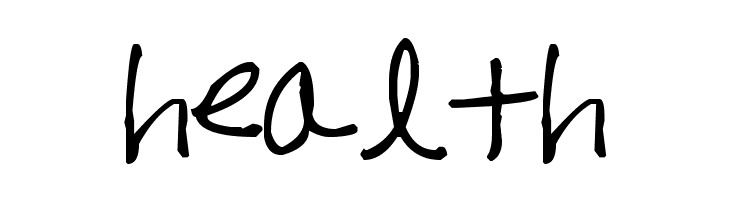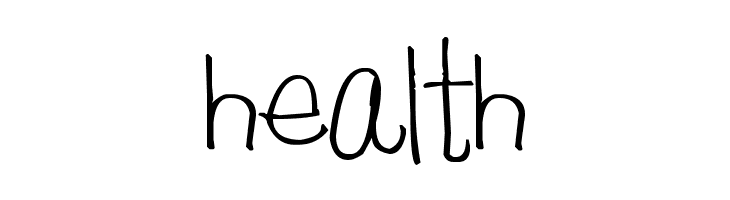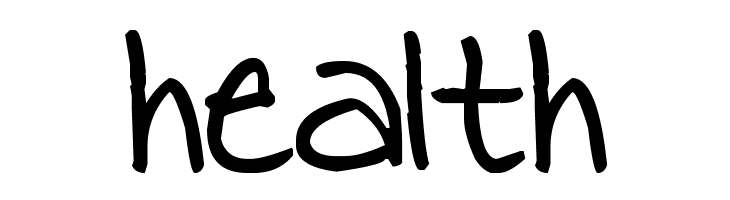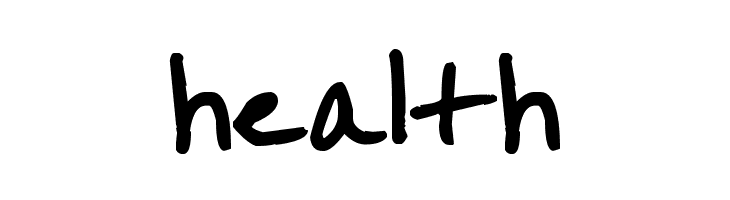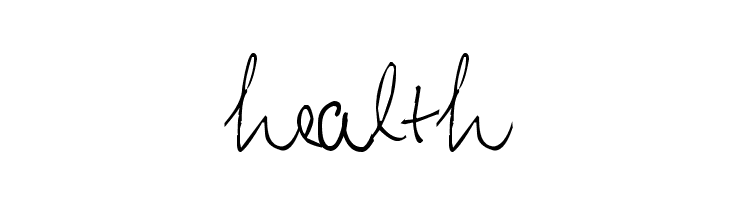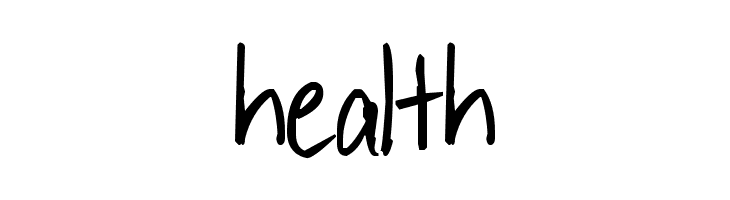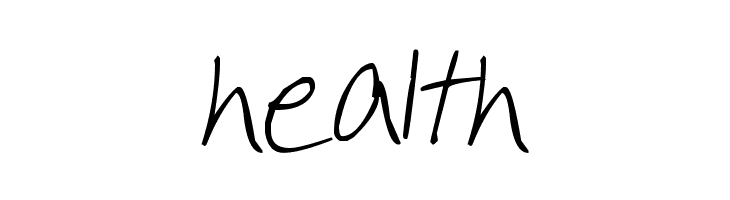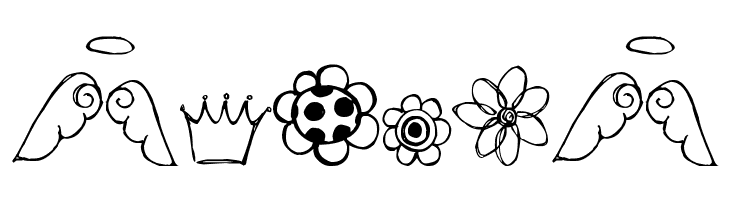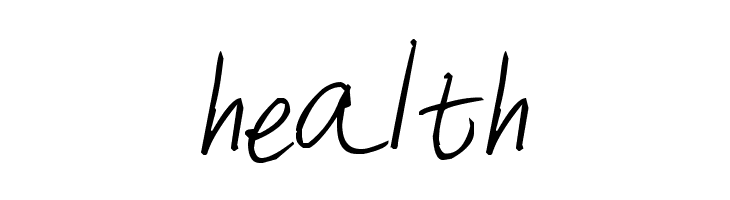
• Pea Stacy's Doodles
A whimsical collection of hand-drawn doodles featuring flowers, paisleys, and other decorative elements.
• Pea Stefanieva
A playful, handwritten font with a casual and informal style.
• Pea Steph
A playful, handwritten-style font with a casual and personal touch.
• Pea Sue's Print
A playful, casual handwritten font with a lively and dynamic style.
• Pea Superamy
A playful, casual handwritten font with loose, flowing strokes.
• Pea Susan
A bold, playful handwritten font with expressive strokes and a casual feel.
• Pea Tammi
A playful, handwritten font with irregular and organic strokes.
• Pea Tammy
• Pea Tana
A playful, casual handwritten font with dynamic, slanted strokes.
• Pea Tangee
A playful, handwritten font with a casual and informal style.